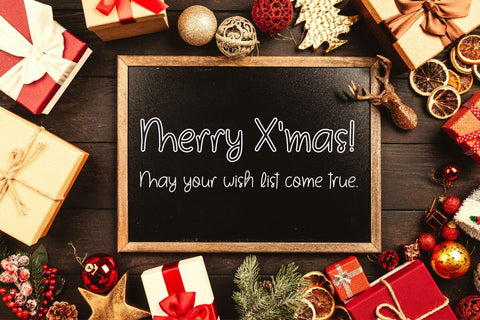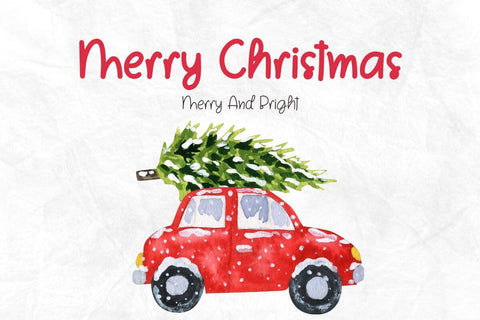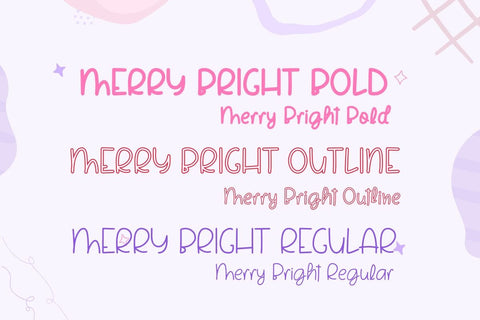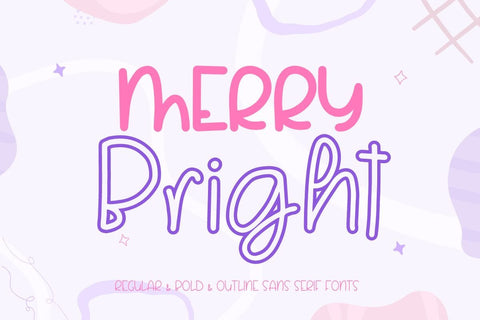
Merry Bright - Cozy Christmas Font Trio (3 Styles)
Merry Bright – a warm, bubbly, and friendly handwritten display font set designed to bring joy and color to the festive season! This cute, rounded Sans Serif typeface comes as a Special 3-Style Font Trio, including Regular, Bold, and Outline versions, allowing you to easily layer text and create unique, standout designs instantly.
Pro Tip: Combine the Bold or Regular style with the Outline style to effortlessly create beautiful 3D or shadow text effects!